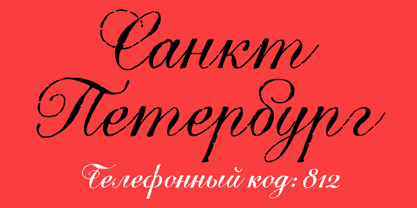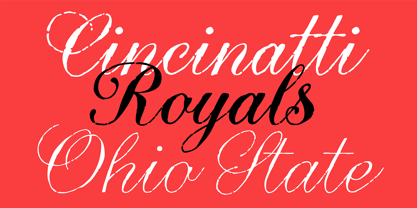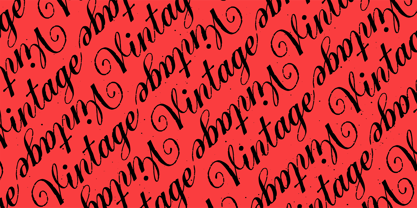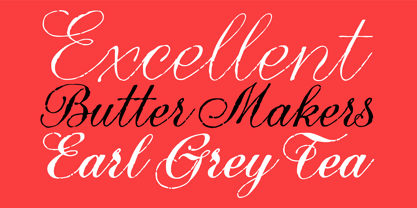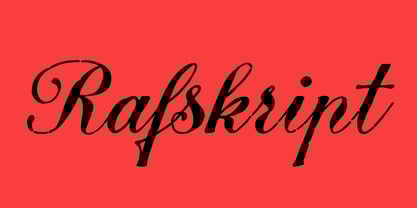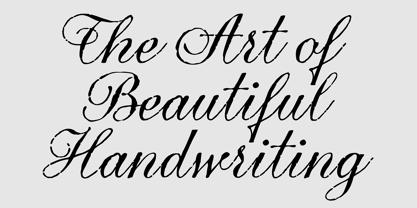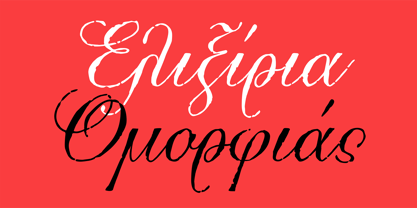
PF Rafskript
by Parachute
The PF Rafskript Font Family was designed by Vladimir Radibradovic and published by Parachute. PF Rafskript contains 3 styles and family package options. More about this family
Sitting inside our offline vault and print catalogs for several years but still available for purchase, PF Rafskript is part of a valuable triad of typographic gems which are finally re-released, fully updated and upgraded. Designed by Vladimir Radibratović, a foremost calligrapher, type designer and illustrator, this trilogy of script typefaces was recently revamped by our design team with full support for Latin, Greek and Cyrillic. Initially released between 2000 and 2003 these typefaces manifest a human, hand-crafted feel. Designed to excel particularly within casual and natural contexts, their names reveal their exact identity. The nostalgic charm of PF Signskript, the unique vintage and rough appeal of PF Rafskript or the organic Mediterranean essence of PF Mediterra have all attracted attention to these popular typefaces for brands on the supermarket shelves, wine labels, packaging, quotes, stationery and vintage lettering.
Designers: Vladimir Radibradovic
Foundry: Parachute